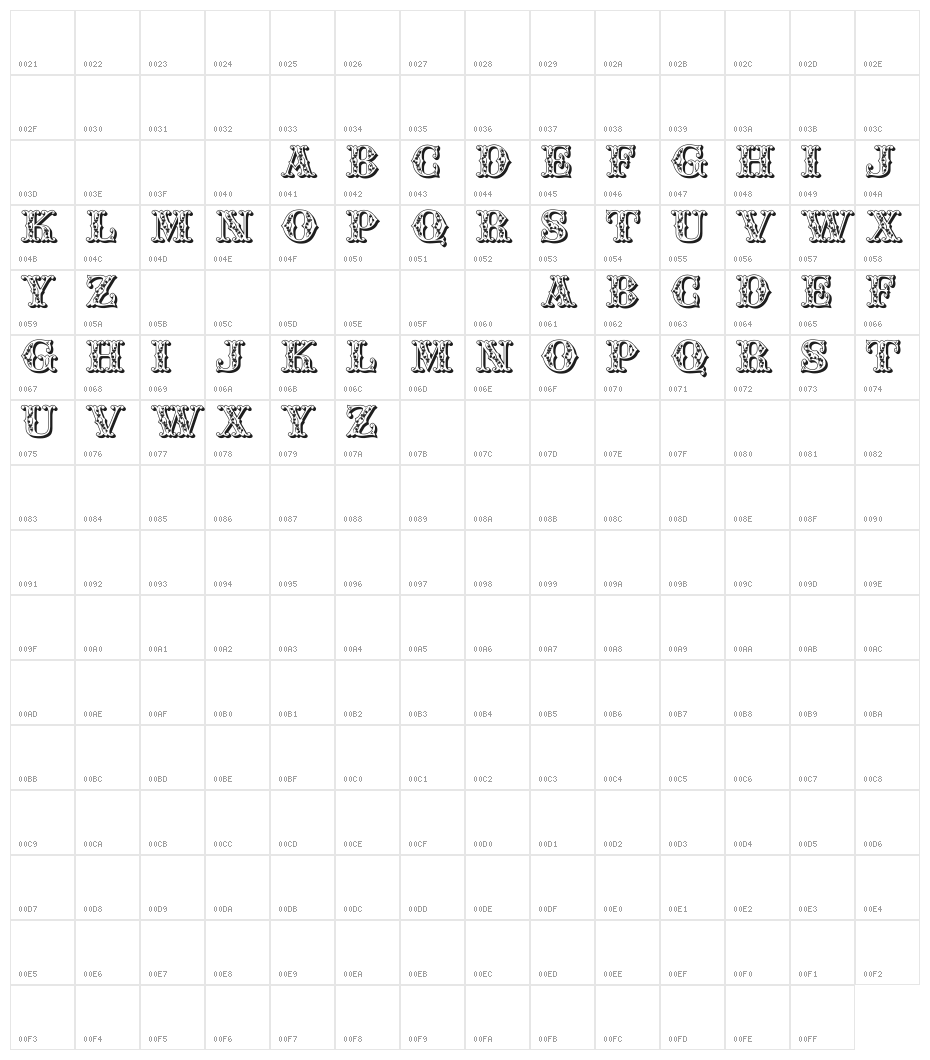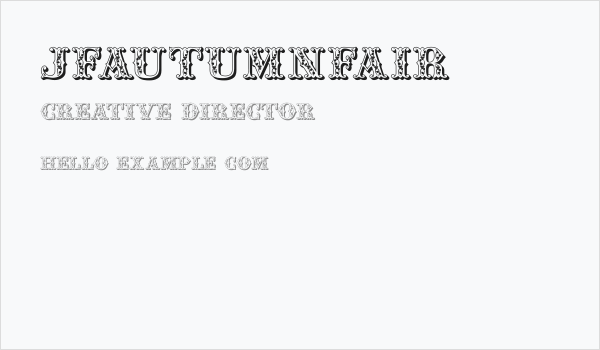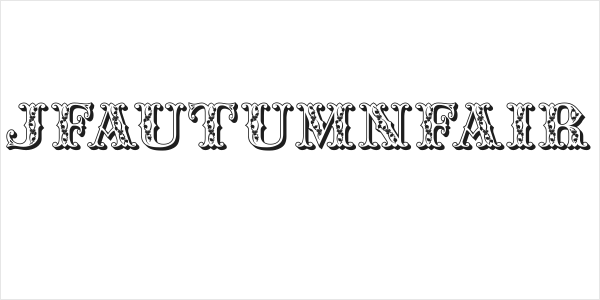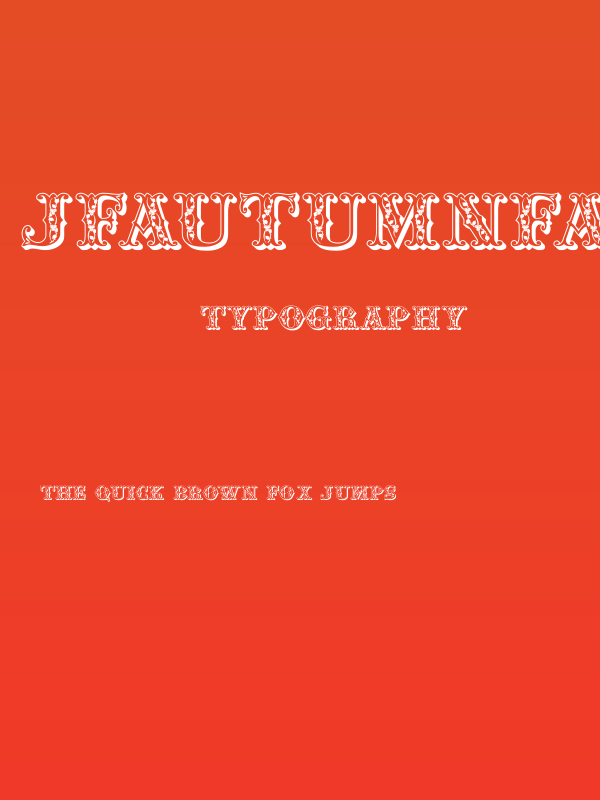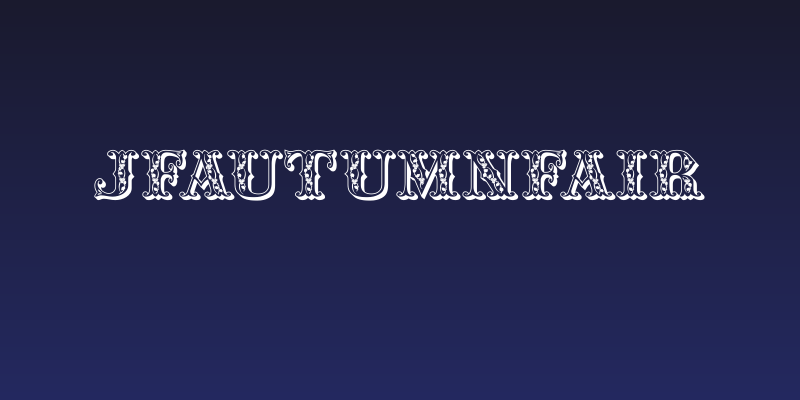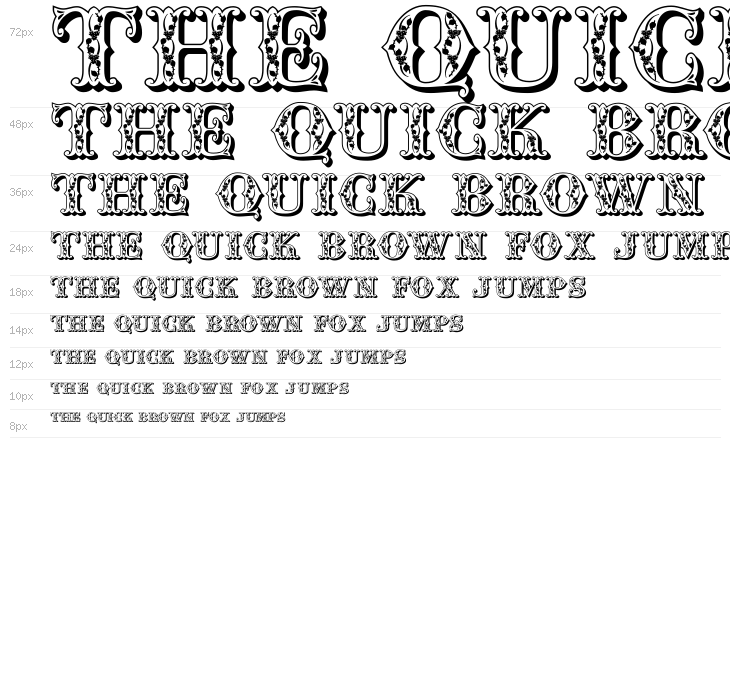
JFAutumnFair Font
JFAutumnFair Description
This font features an ornate and decorative style, characterized by intricate detailing within each letterform. The uppercase letters are bold and embellished with flourishes that give a sense of elegance and sophistication. The design includes a mix of thick and thin strokes, providing a high contrast that enhances its decorative appeal. The font's unique aesthetic is reminiscent of vintage or Victorian-era typefaces, making it ideal for projects that require a touch of classic charm. The overall appearance is both artistic and formal, suitable for creating eye-catching headlines or titles.
| Proposed Projects | Ideal for wedding invitations, vintage-themed posters, book covers, and branding materials that require a classic and elegant touch. |